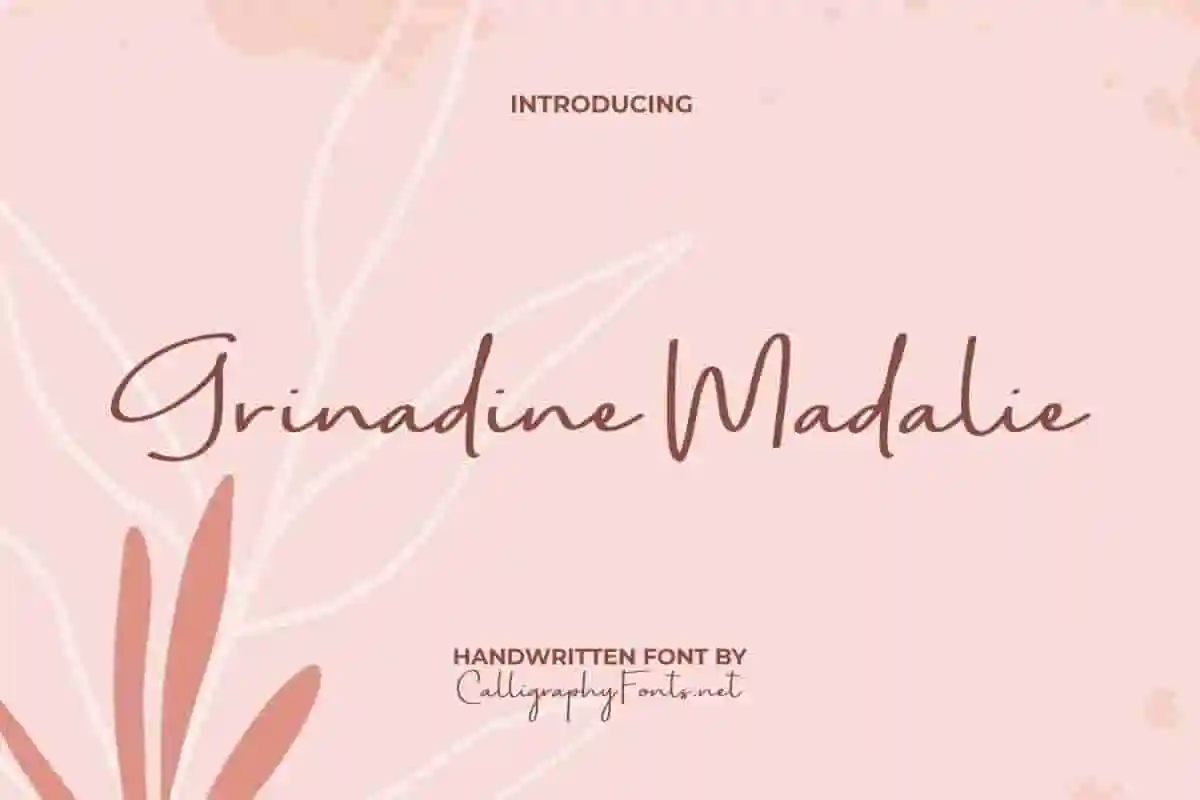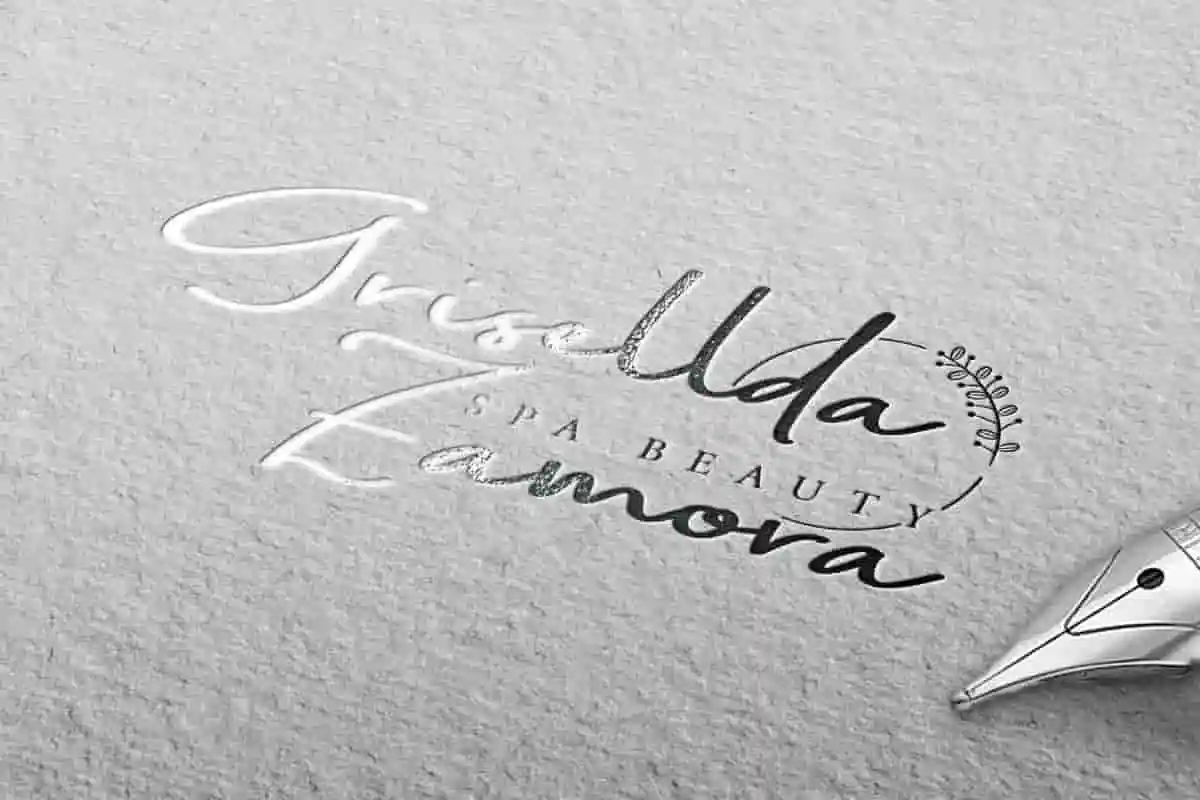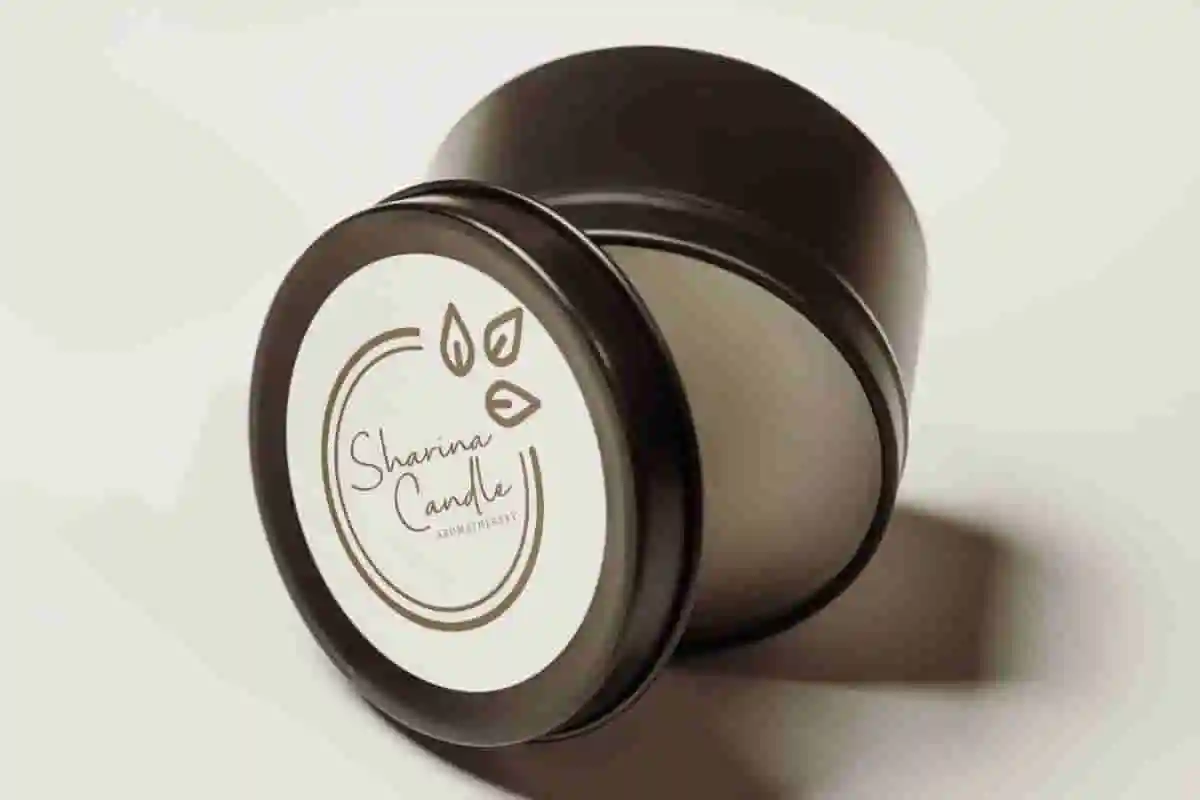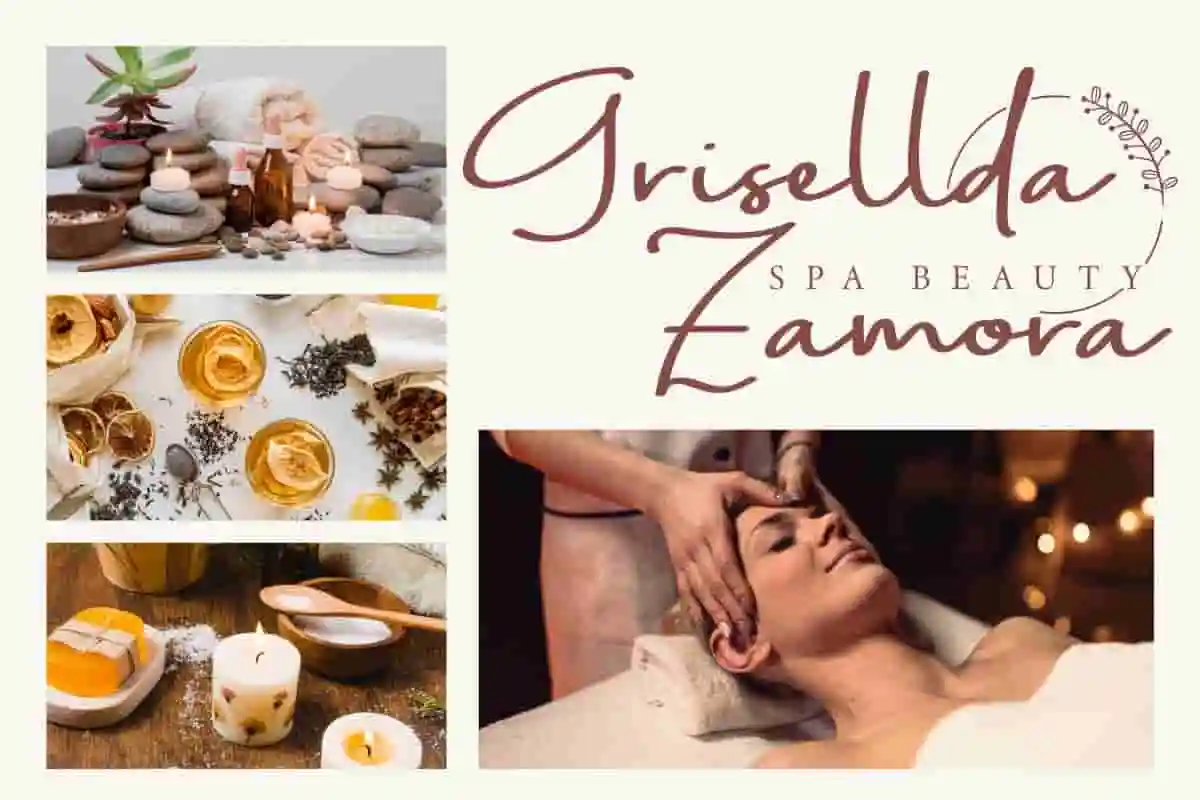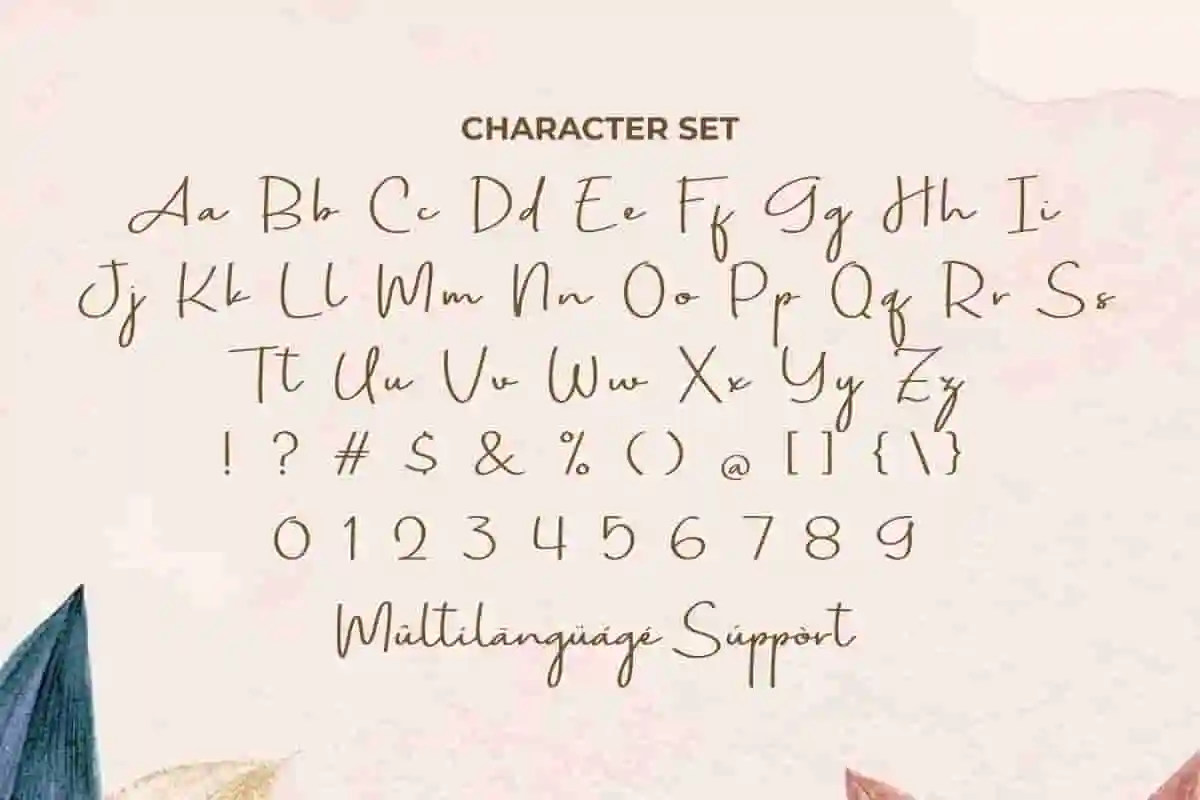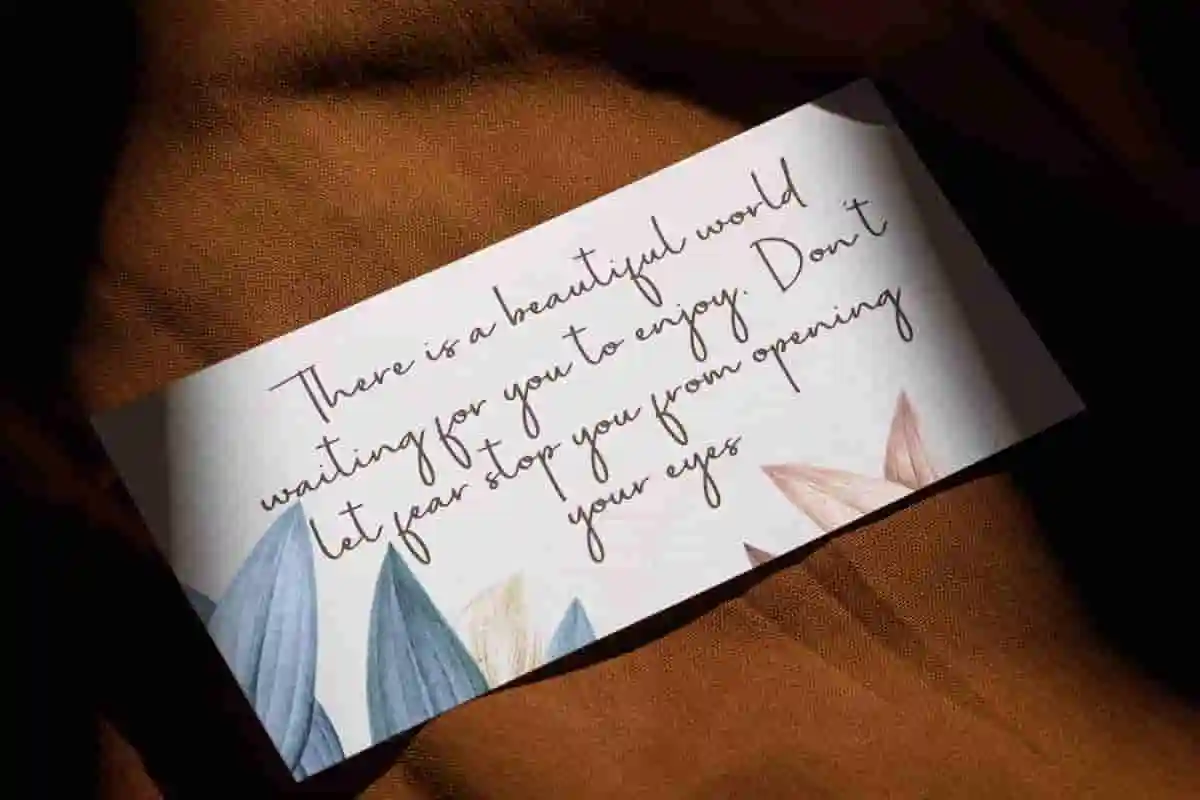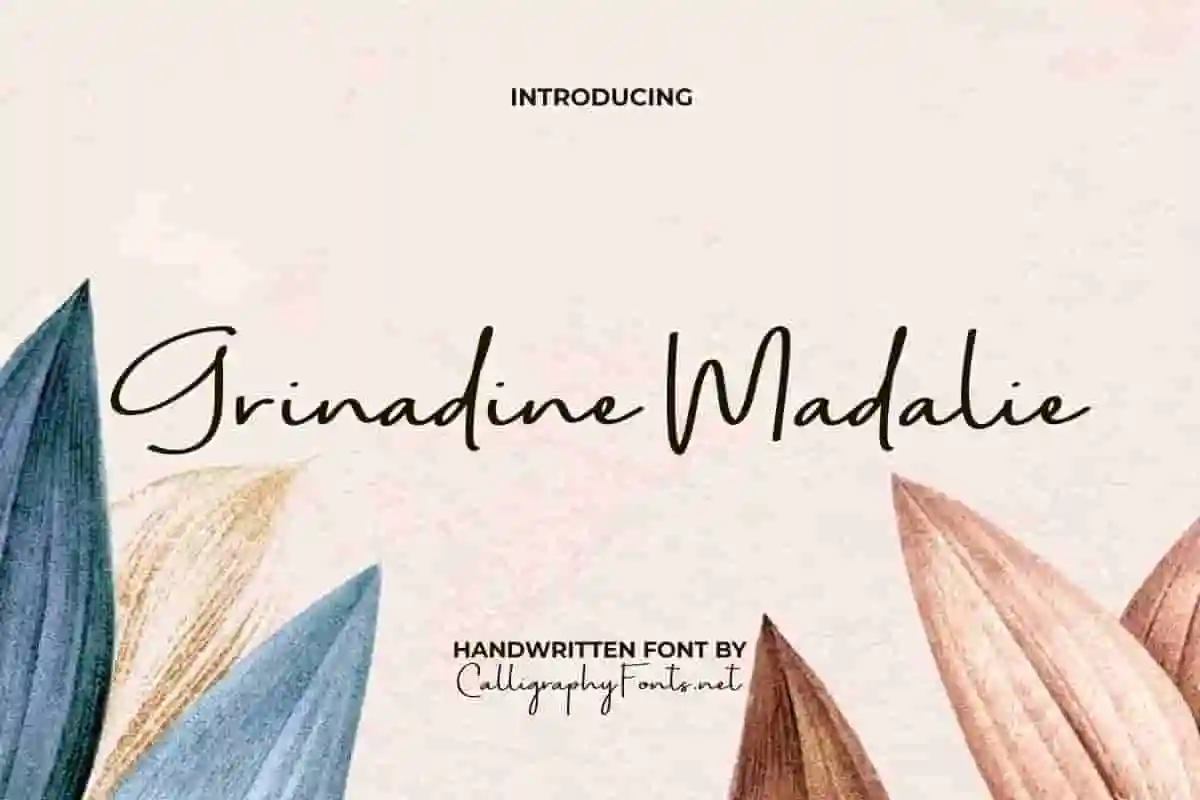
Grinadine Madalie Font
Grinadine Madalie Handwriting Font is a popular modern style handwritten font! Bring the handmade essence to your projects with it. This would be suitable for bouquet store, label, mockup, spa salon, stationery, title, web, wedding, etc.
Grinadine Madalie Font is a trendy handwritten font that embodies a simple casual script style with stylish and flowing brush lines. It offers an elegant aesthetic in a timeless touch that is unmistakably handmade. Great for apparel, accessories and gifts, beauty therapist, boutique, event organizer, corporate, florist, graphic design, handicraft, printing, publishing, skincare, spa salon, wedding, and more.
Introduce timeless beauty into your projects with Grinadine Madalie Handwriting Font, a graceful script typeface designed to capture romance, sophistication, and charm. With flowing curves, delicate swashes, and a natural handwritten feel, this font transforms every word into a piece of art.
Perfect for wedding invitations, bridal stationery, luxury logos, greeting cards, packaging, and event branding, Grinadine Madalie Handwriting Font is versatile enough to fit both personal and professional projects. Its elegant style creates an emotional connection, making it ideal for designs that celebrate love, beauty, and creativity.
Each character is carefully designed for balance and readability, ensuring that your message remains stylish while still easy to read. Whether you are designing invitations for a dream wedding, creating branding for a high-end boutique, or adding a romantic touch to social media graphics, this font gives your work a polished, unforgettable look.
Grinadine Madalie Handwriting Font is a beautiful handwritten font that is full of warmth, versatile, and still looks stylish. This font will add a personal and easy-to-understand feel to any of your creative ideas. Great for banners, blogs, brand logo, brochure, embossed design, heading, invitation, label tag, mockup, poster, product packaging, quotes, stationery, sticker, template, title, watermarks, website, and more.